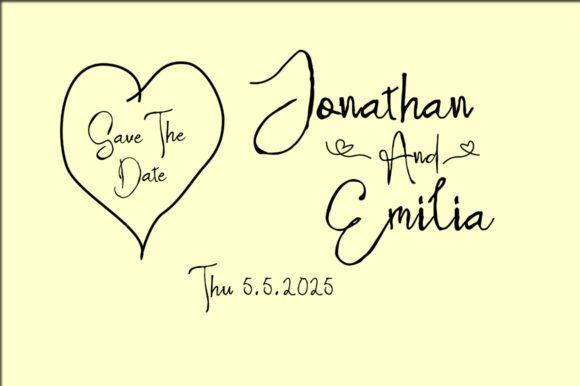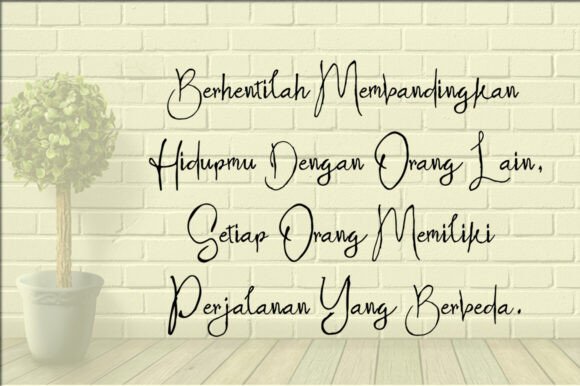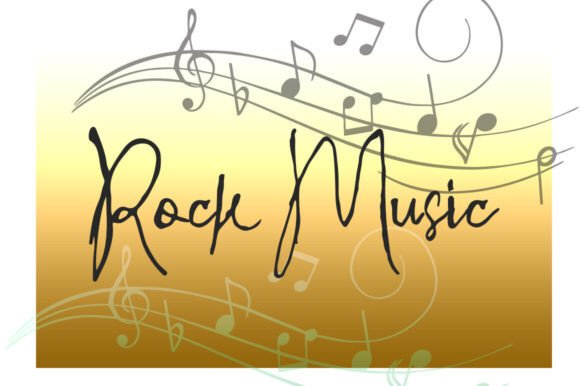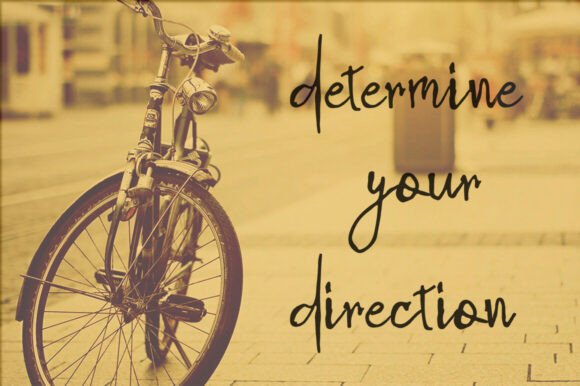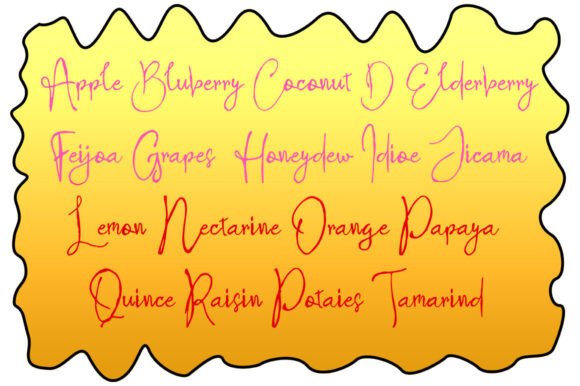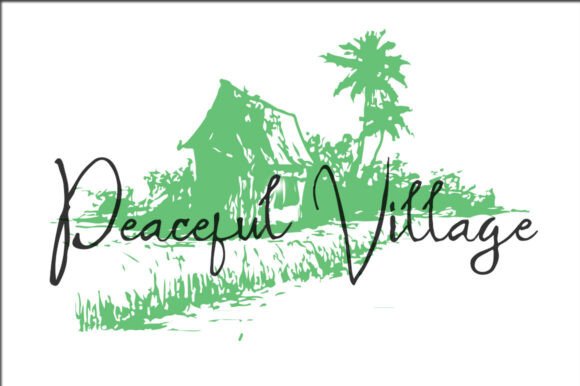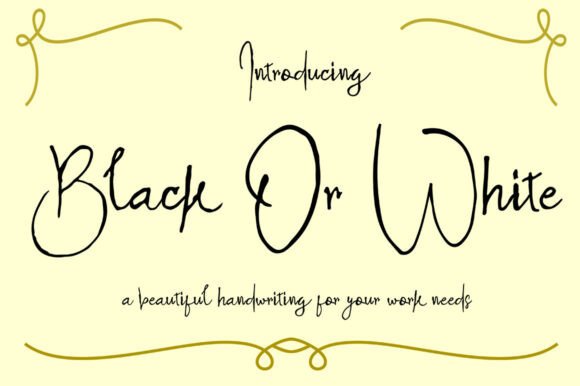
The Power of Black or White Font: A Designer’s Best Friend
I still remember the time I was working on a wedding invitation project, and my client asked for a custom font that would match the elegance and sophistication of their special day. I scoured the internet, tried countless fonts, but nothing seemed quite right. That’s when I stumbled upon the Black or White font, a beautiful script produced from handwritten art. It was love at first sight! 💕
In this article, I’ll share my experience with the Black or White font, its features, and how to make the most of it in your designs. Whether you’re a designer, crafter, or creative hobbyist, you’ll find this font to be a versatile and valuable addition to your toolkit.
Honest Review: What I Love and What I Don’t
- 💯 Elegant and sophisticated: The Black or White font exudes refinement and poise, making it perfect for wedding invitations, luxury brands, and high-end designs.
- ✅ Versatile: This font can be used for a wide range of projects, from digital designs to print materials.
- 🎨 Handwritten art: The font’s handwritten origins give it a unique, personal touch that sets it apart from more traditional fonts.
- ⚠️ Limited use in body text: While the Black or White font is stunning in headings and titles, it may not be the best choice for body text due to its script nature.
- 🤔 Some letters may require adjustment: Depending on the design, some letters may need to be adjusted to ensure proper spacing and alignment.
- Explore the OpenType features, such as glyphs and stylistic alternates, to add more flair to your design.
The Story Behind Black or White Font
The Black or White font was created with the intention of providing a unique, elegant script font that would inspire designers and creatives. While the exact story behind the font is unclear, it’s evident that the designer aimed to craft a font that would be both versatile and beautiful.
| Font Name | Black or White Font |
| Author | YURA Creative |
Q: What type of projects is the Black or White font best suited for?
A: The Black or White font is perfect for wedding invitations, luxury brands, high-end designs, and creative projects that require an elegant, sophisticated touch.
Q: Is the Black or White font available in different styles or weights?
A: The Black or White font may be available in different styles or weights, but it’s essential to check with the font creator or supplier to confirm the available variations.